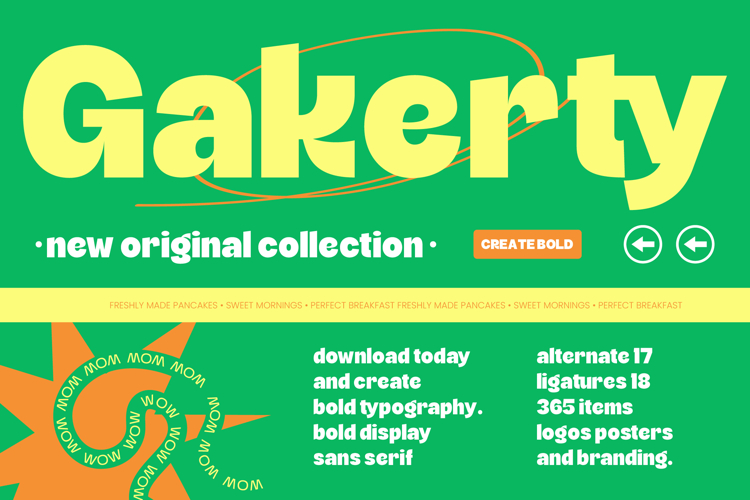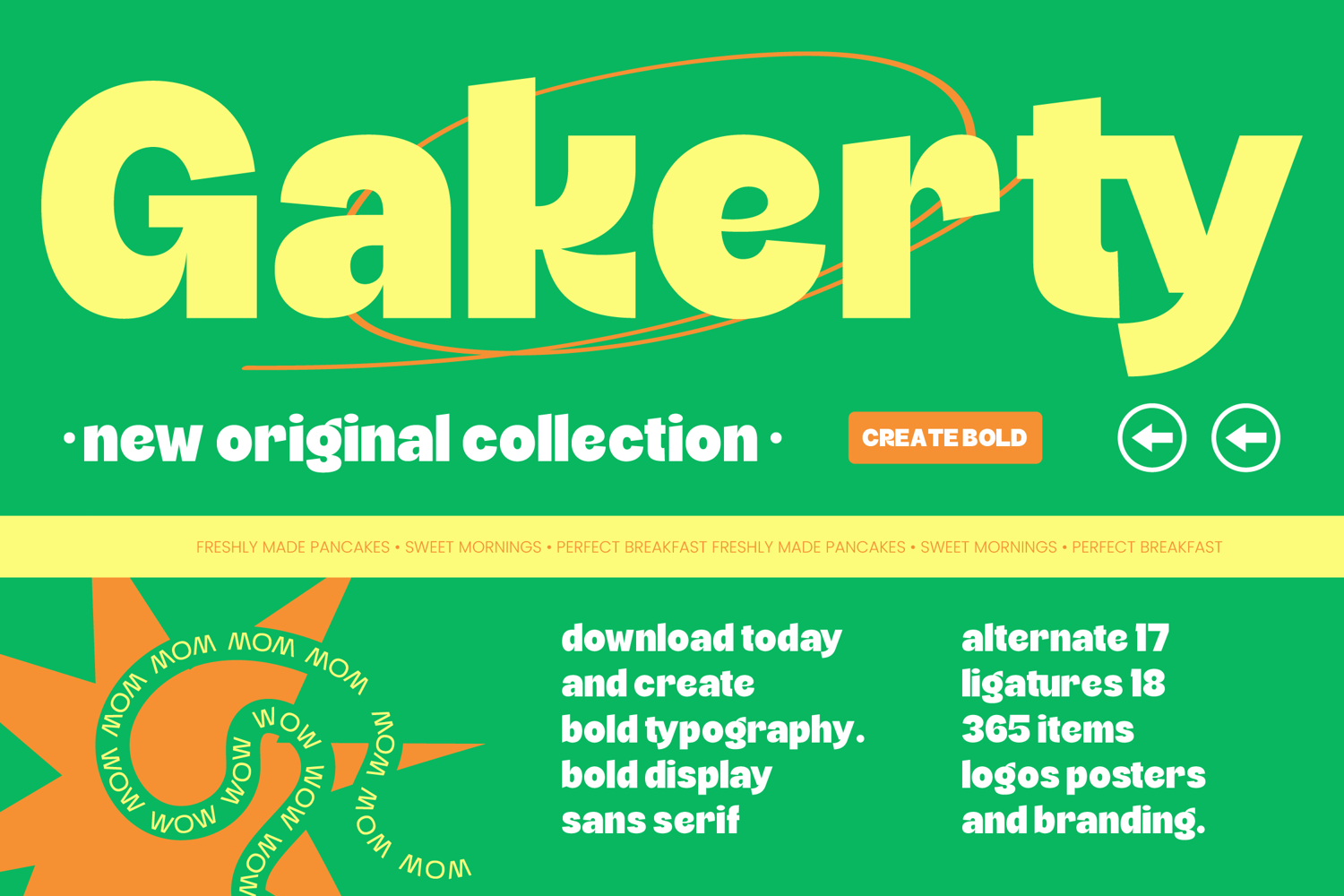
Gakerty - Bold Display Sans Serif
Command immediate attention with the high-impact design of Gakerty - Bold Display Sans Serif. This typeface is a masterclass in modern display typography, featuring ultra-thick strokes and sharp geometric cuts that demand to be noticed. Its contemporary aesthetic balances heavy-weight presence with playful, energetic curves, making it the definitive choice for designers looking to create a bold visual statement in a crowded marketplace.
Expand your creative reach across borders and connect with audiences everywhere. With its extensive multilingual support, Gakerty - Bold Display Sans Serif adapts seamlessly across global markets, making it incredibly versatile for international projects. Whether you are crafting messaging for a local startup or a multinational corporation, this font ensures your brand voice remains consistent and visually powerful across diverse languages and character sets.
Transform your vision into reality with the ideal application for this versatile powerhouse. Gakerty - Bold Display Sans Serif is perfect for luxury branding, dynamic packaging, and high-energy editorial design. Its massive weight and unique letterforms excel in logo design and large-scale posters, where clarity and personality are paramount. From digital interfaces to physical merchandise, it provides a premium look that resonates with modern consumers.